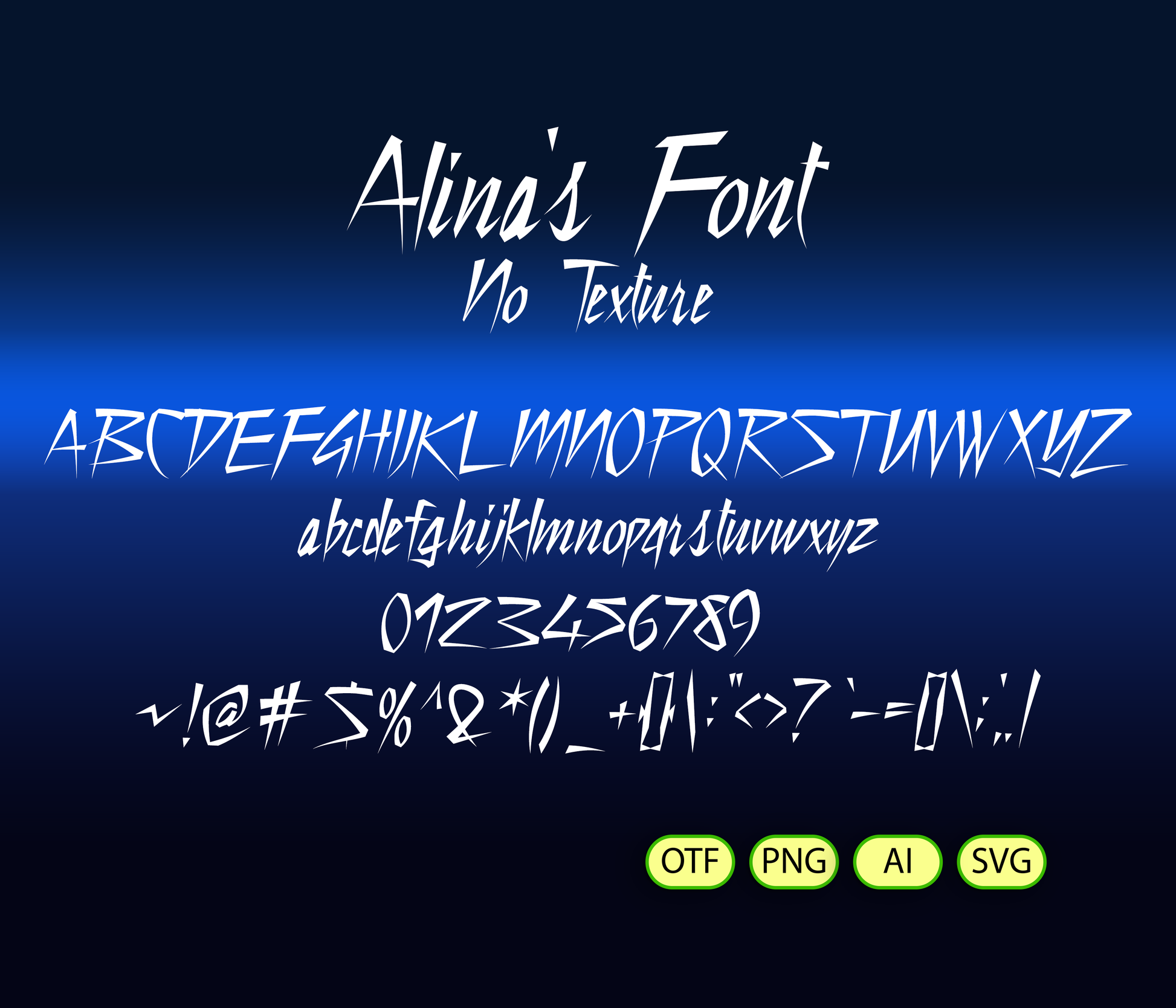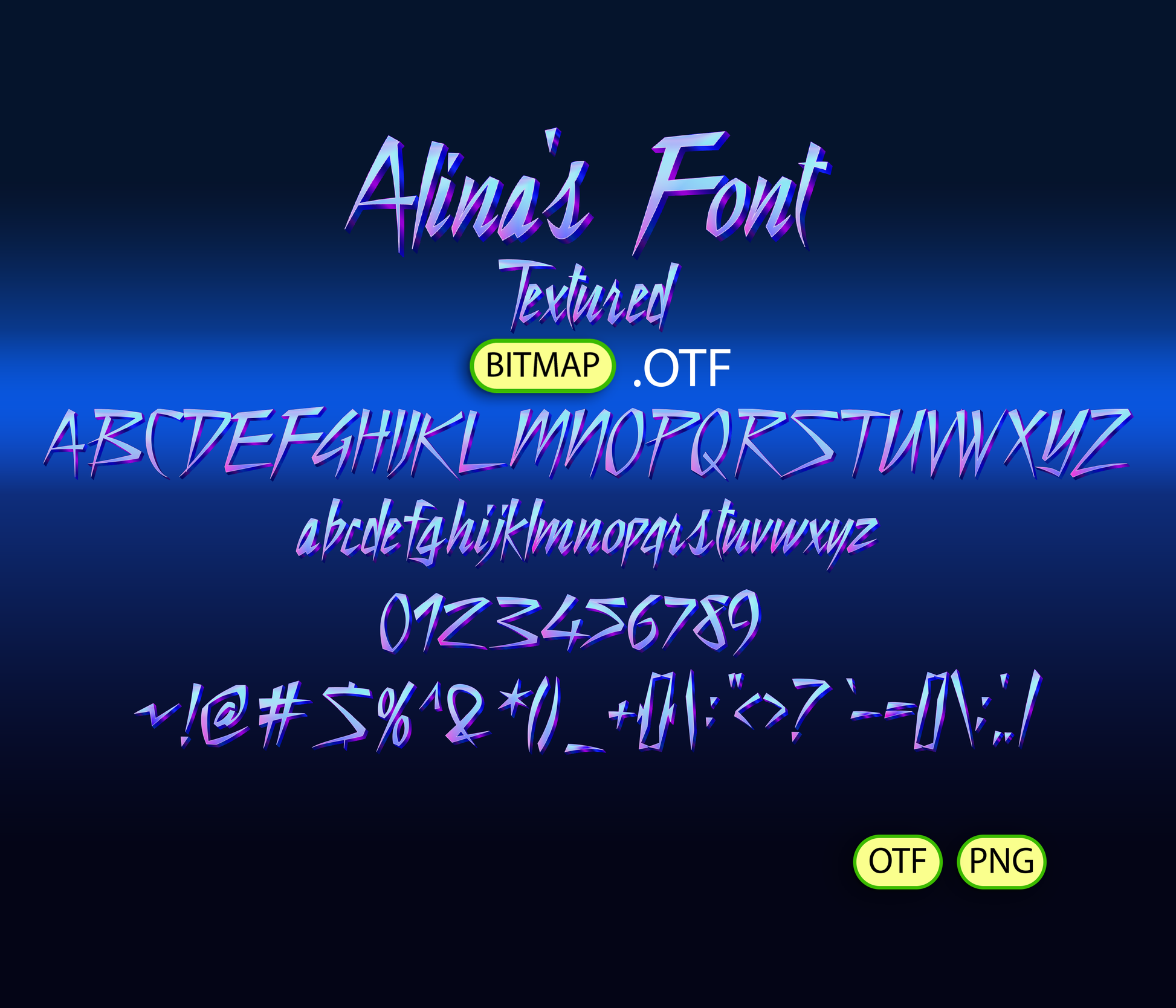
Cosmic Defender Textured Font: Unleashing the Power of Galactic Typography
Dive into the thrilling world of a cosmic defender with our dynamic Cosmic Defender Font. Inspired by the galactic heroics and futuristic feats of an alien-powered superhero universe, this typographic creation encapsulates the spirit of adventure, courage, and technological marvels. Immerse yourself in the boundless possibilities of typography as you unleash the power of interstellar heroism in your creative endeavors.
What Font is Cosmic Defender Font?
Those on the quest for authenticity will discover that the Cosmic Defender Font is a true stand-out, offering an unmatched resemblance to iconic sci-fi superhero lettering. This comprehensive typeface goes above and beyond with a full range of uppercase and lowercase letters, numbers, and special characters, providing a level of detail that font generators can't replicate. Whether you're a hardcore fan or a professional designer, this font delivers the look and feel of an alien-powered hero's world, granting you the power to bring cosmic adventures to life in your own creations.
What Can You Do With Cosmic Defender Textured Font?
- Equip your wardrobe or merchandise line with stylized phrases inspired by galactic heroism.
- Accessorize your tech gear with vinyl decals that capture otherworldly glyphs.
- Send out event invitations that instantly immerse recipients into a cosmic reality.
- Create your own comic adventures using symbols that speak to the heart of an interstellar hero's journey.
- Engage readers with book covers and promotional materials that wield the power of alien technology.
- Fill your living space with quotes and artistry that are loyal to sci-fi superhero designs.
- Command attention on social media by brandishing hashtags and captions in an unbeatable galactic style.
- Leave your mark on DIY crafts and scrapbooking with the superhero finesse that only the Cosmic Defender Textured Font can provide.
Feature Highlights and Bonuses
The Cosmic Defender Font stands alone in its capacity to deliver the essence and aesthetic of sci-fi superhero typefaces. Ideal for accurate vinyl cuts and precision projects, this font is especially compatible with Cricut machines, inviting crafters to delve into an expansive universe of cosmic heroism without losing an ounce of original character. Step into a galactic defender's universe with the ultimate typographic tool at your fingertips. With our Cosmic Defender Font, your projects will not only communicate action and adventure but also possess an unmatched fidelity to the source material that dedicated fans and discerning designers will immediately recognize and appreciate.